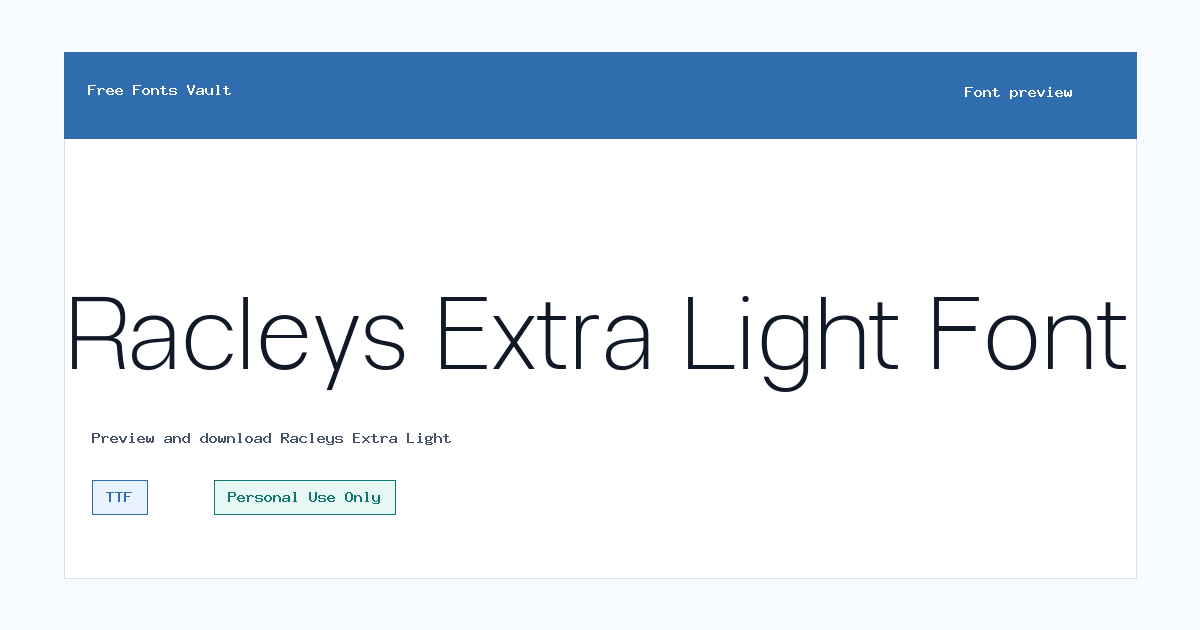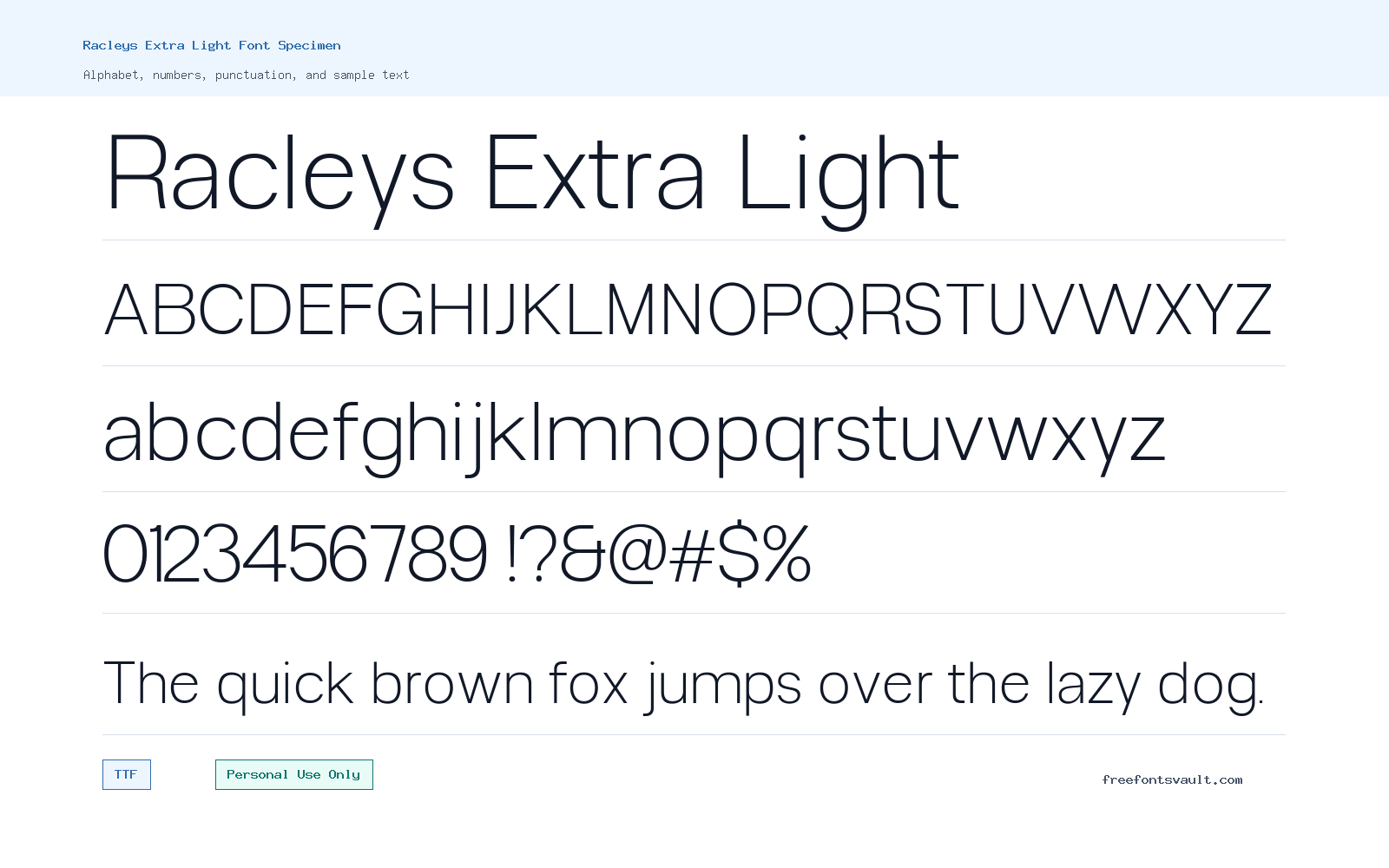
Racleys Extra Light
Racleys Extra Light font.
Racleys Extra Light is a light-weight sans serif font with a clean, thin appearance suited to simple display work, elegant headings, and design drafts that need a quiet modern tone.
About Racleys Extra Light
Racleys Extra Light belongs to the Racleys sans serif family and is offered in a TTF font file. The available style is a normal upright cut with a light weight, making it best for text that has room to breathe. It is not the kind of font you choose for dense reading or small captions. Its value is in short, controlled settings where thin strokes can stay clear: a headline, a name mark, a poster title, a menu header, a fashion-style layout, or a refined web mockup.
Because this is an Extra Light style, preview it at the size you plan to use before downloading. Thin sans serifs can look polished at large sizes, but they may lose strength on low-resolution screens, busy backgrounds, or small print. For logo work, test the letters in both uppercase and lowercase, then check spacing around narrow characters. For posters and social graphics, give the font contrast with a darker background or plenty of white space. For web mockups, use it for hero headings or section titles rather than long body copy. Pair it with a sturdier sans serif for paragraphs, buttons, and navigation so the overall design stays readable.
Racleys Extra Light can also be useful when you want a restrained typographic voice without heavy decoration. It should work well in minimal layouts, portfolio concepts, beauty or lifestyle draft designs, invitation-style headings, editorial mockups, and clean branding explorations. Since the license is Personal Use Only, treat it as a font for personal projects, testing, learning, and non-commercial drafts unless you obtain the correct commercial permission from the rights holder.
- Extra light sans serif style with a normal upright appearance
- Best suited to larger text where thin strokes remain visible
- Useful for clean headings, title treatments, and minimal layout concepts
- Large headings and title layouts
- Logo concept testing and name mark drafts
- Poster, flyer, and social media design mockups
- Portfolio, fashion, beauty, lifestyle, or editorial-style concepts
- Website hero sections and landing page mockups
Use Racleys Extra Light where the font can be displayed at a comfortable size. It is better for headings, logos in progress, posters, and refined mockups than for long paragraphs. When pairing it, choose a stronger sans serif for body text and interface labels so the thin display style does not have to carry the whole layout.
What type of font is Racleys Extra Light?
It is a light-weight sans serif font in a normal upright style.
Is Racleys Extra Light good for logos?
It can be useful for logo concepts and name mark drafts, especially when a thin, clean look is desired. For final commercial logo use, check the license first.
Can I use Racleys Extra Light for body text?
It is better for headings and short text. Extra light fonts can become hard to read in long paragraphs or at small sizes.
What fonts pair well with Racleys Extra Light?
Pair it with a more readable regular-weight sans serif for body copy, buttons, and navigation. Keep the lighter style for headings or accents.